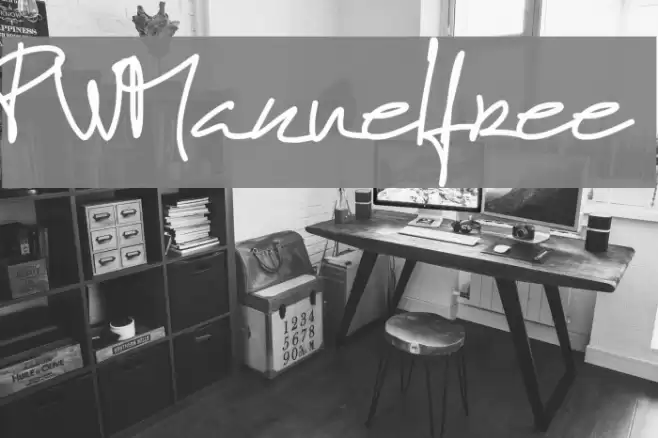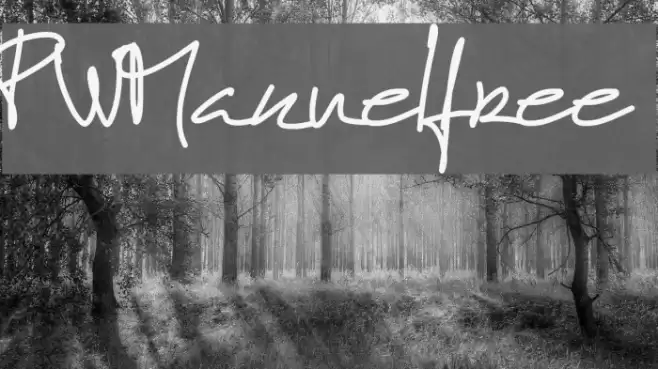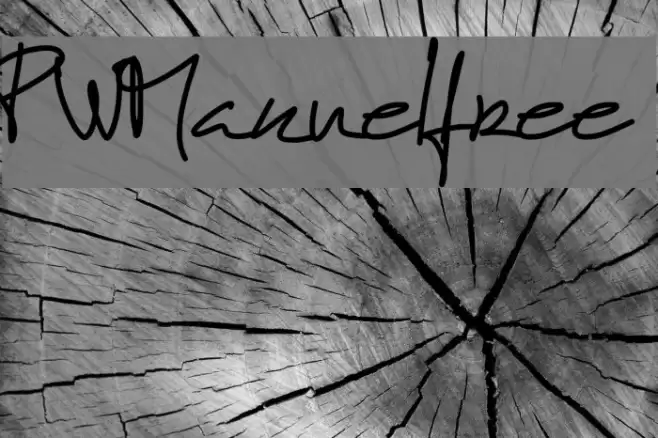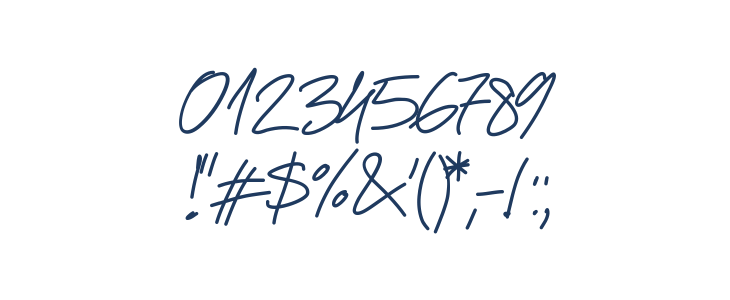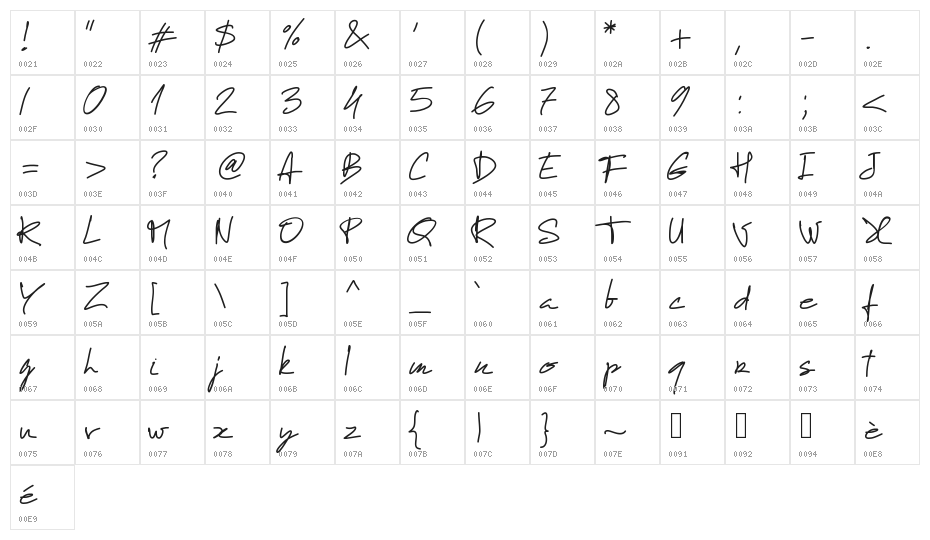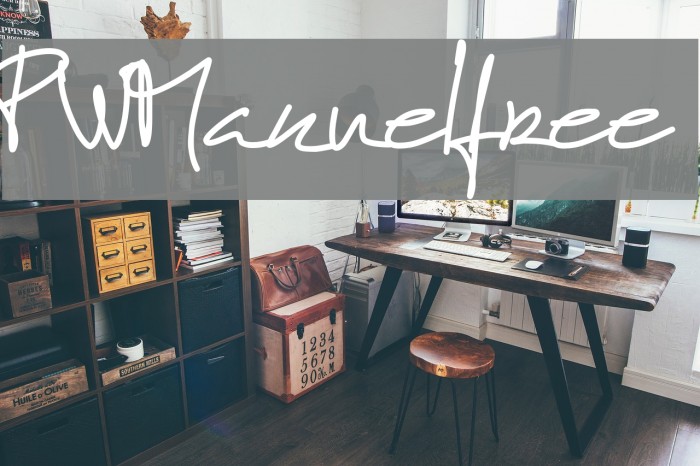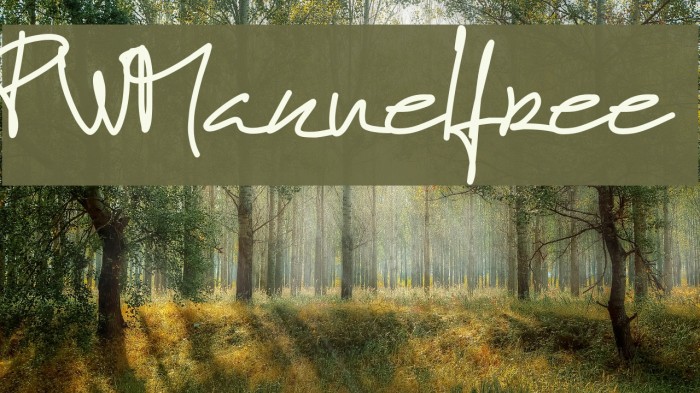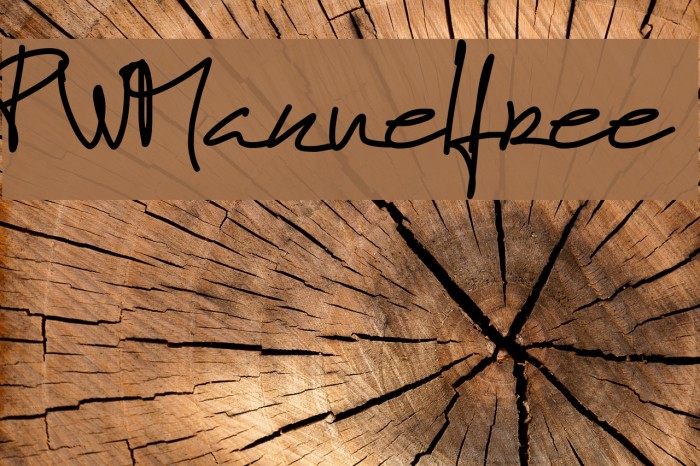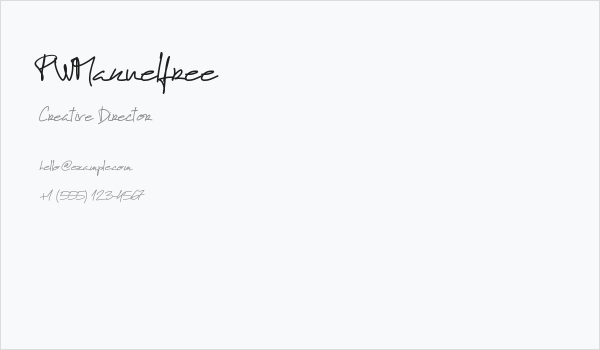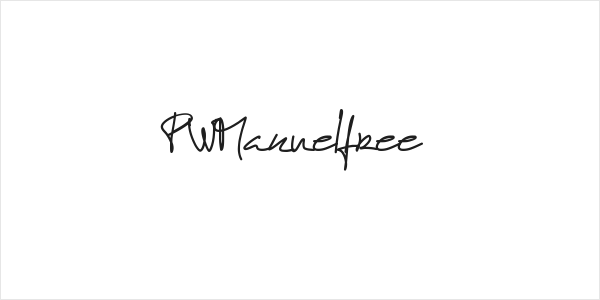
PWManuelfree Font
PWManuelfree Description
This font exudes a dynamic and energetic vibe, characterized by its handwritten style that mimics the fluidity and spontaneity of natural handwriting. The letters are slightly slanted, giving a sense of movement and informality. The strokes are uneven, with varying thickness that adds to the authentic handwritten feel. The uppercase and lowercase letters are distinct, with the uppercase being more bold and pronounced. Numbers and special characters maintain the same lively style, ensuring consistency across all elements. This font is perfect for projects that require a personal touch or a casual, approachable aesthetic.
A dynamic, handwritten-style font with a lively and informal appearance from Handwritten fonts.
- Proposed Projects: Ideal for personal branding, greeting cards, casual invitations, and creative projects that require a personal touch.
- Overall Style: Casual
- Use Case: Logos, Invitations, Personal Branding